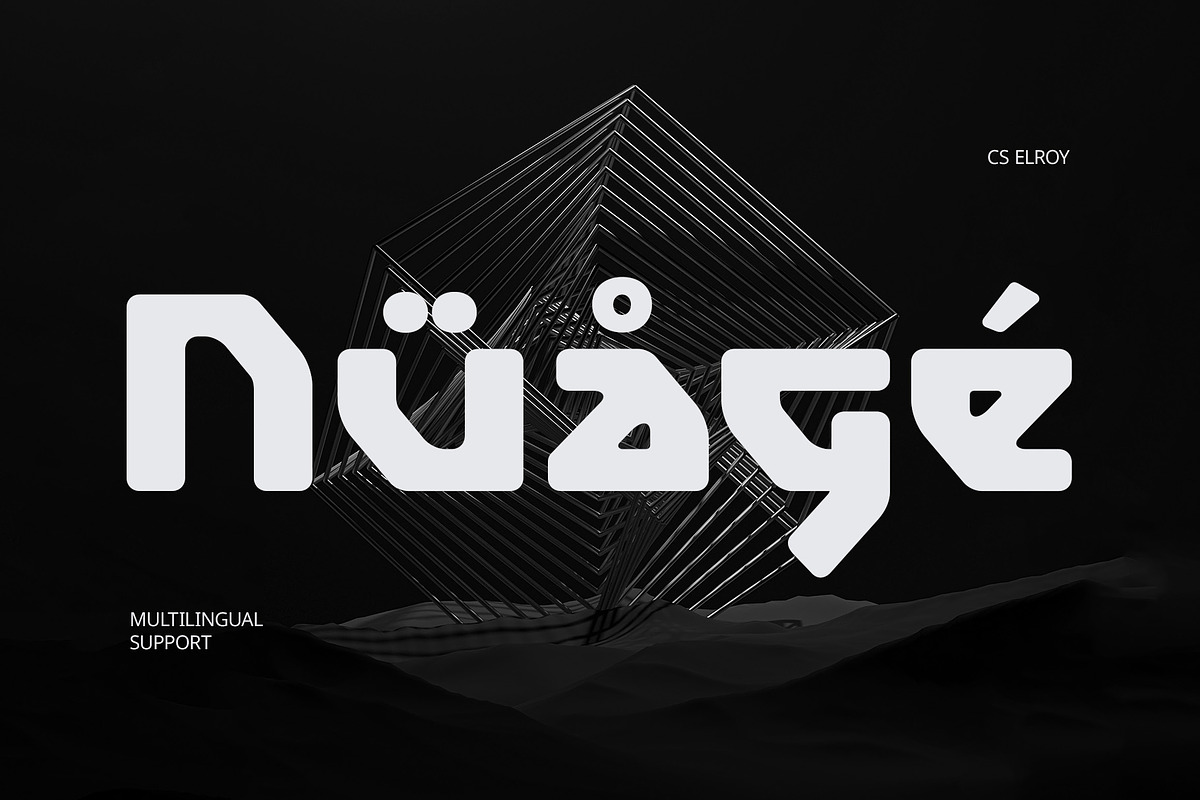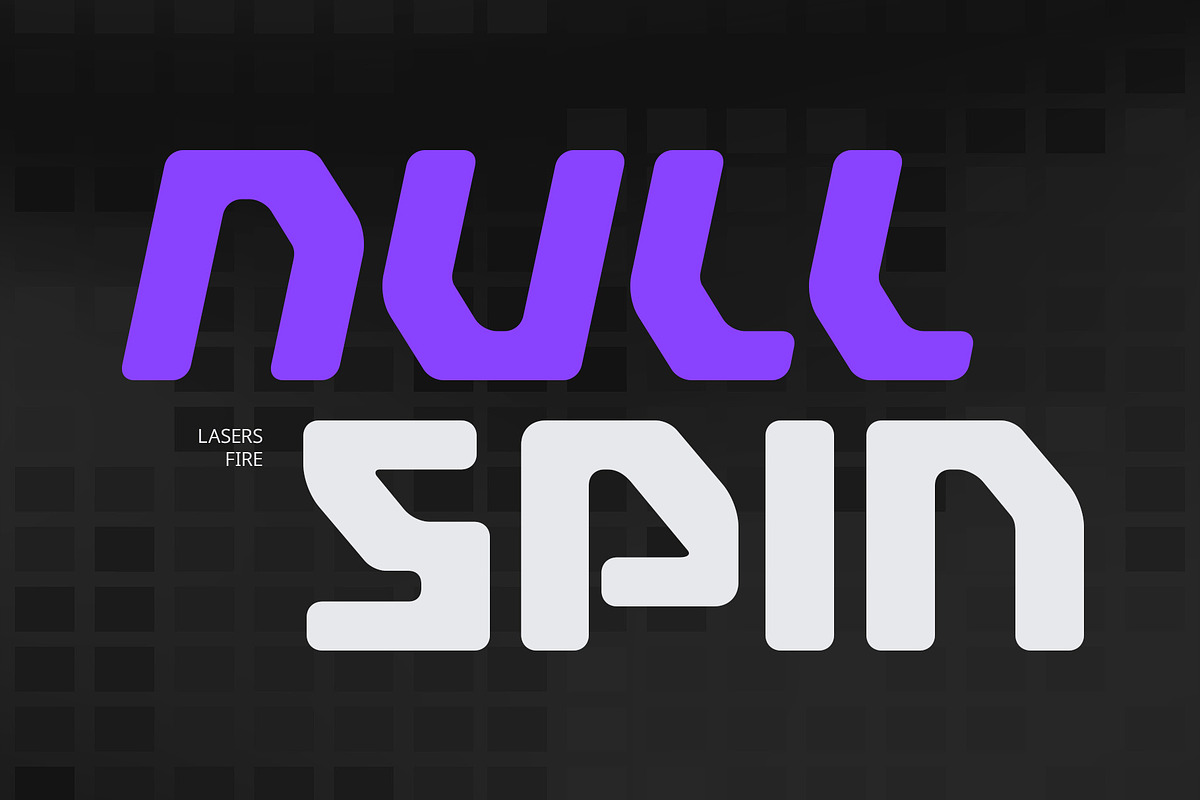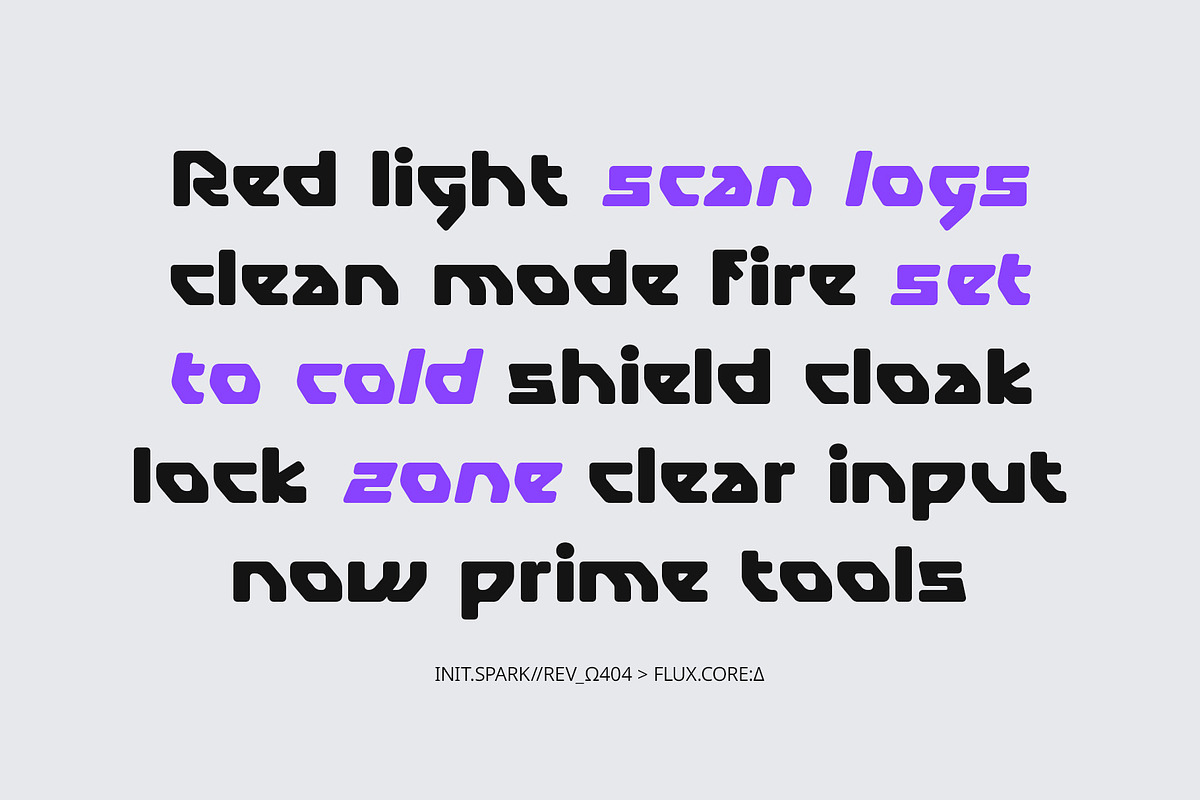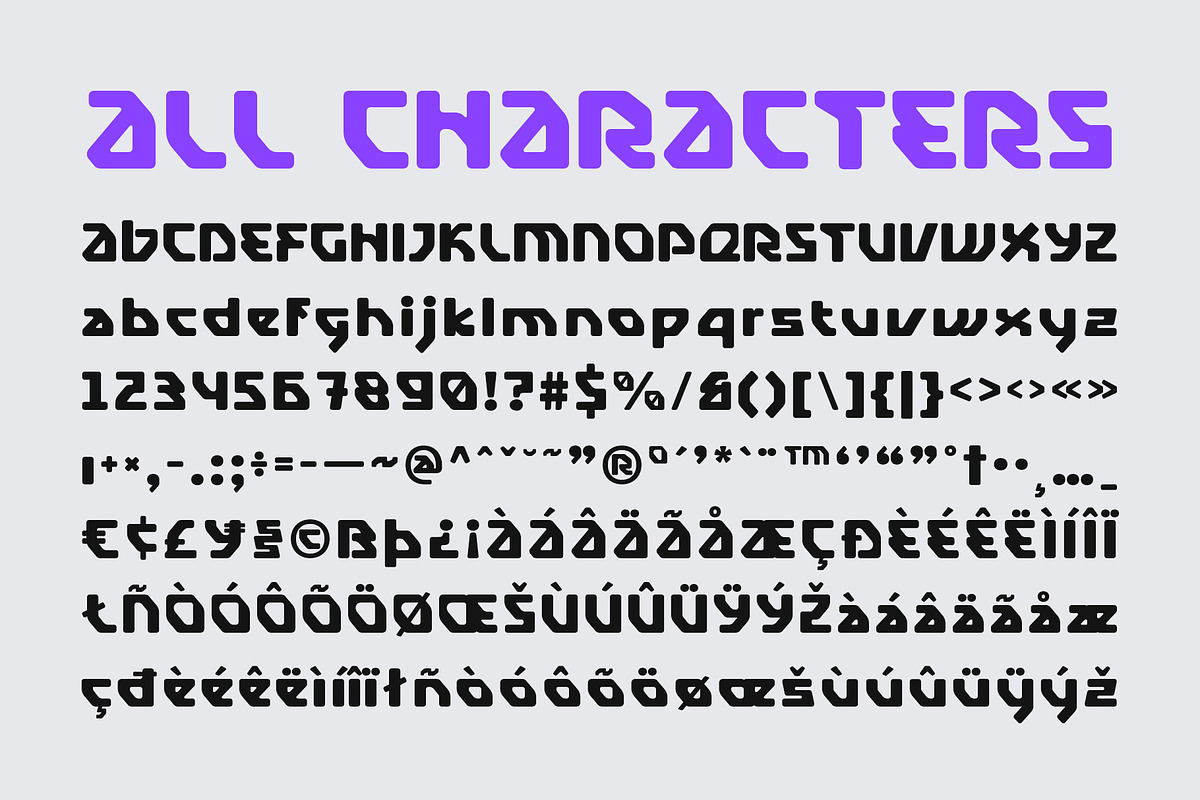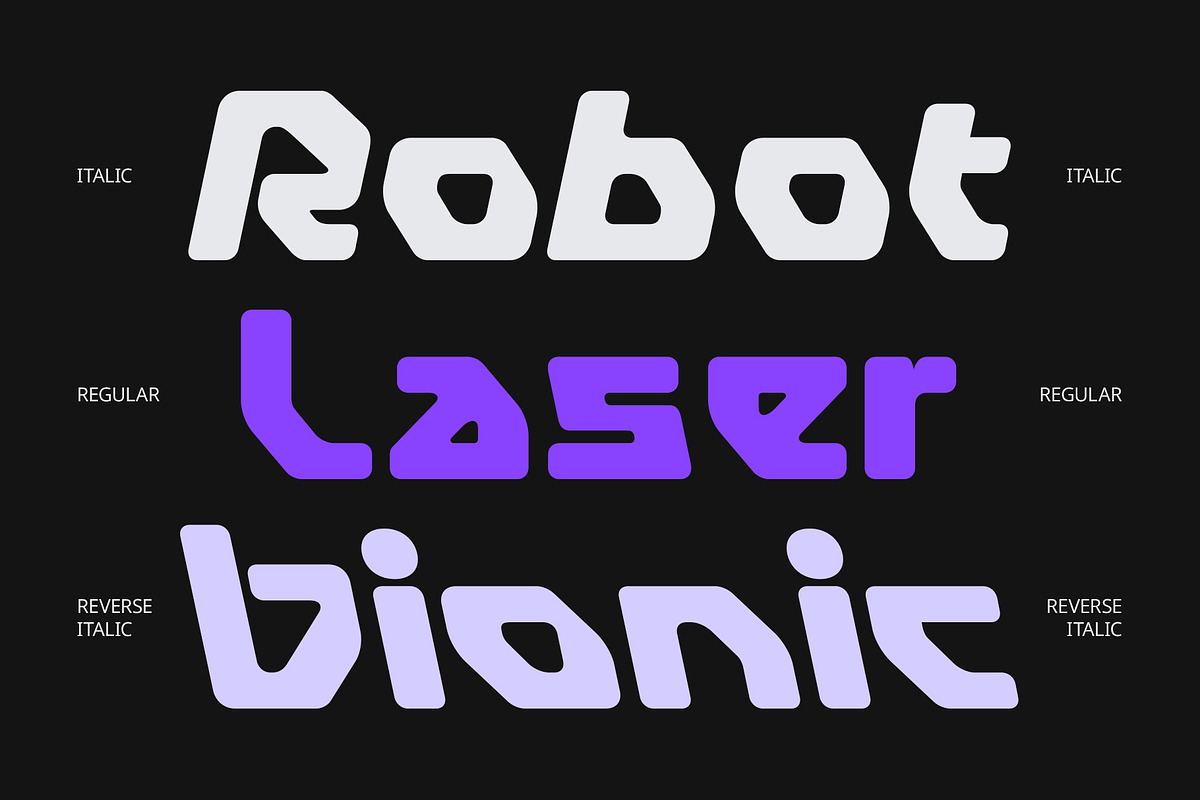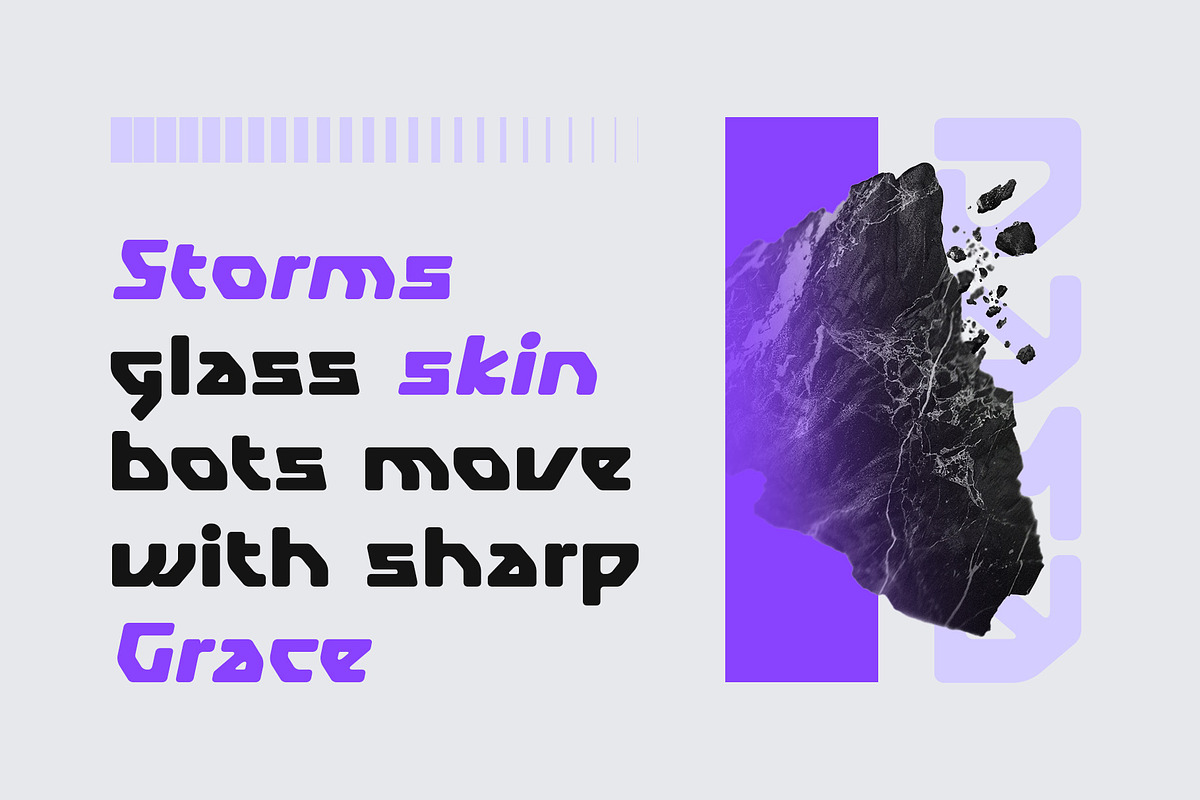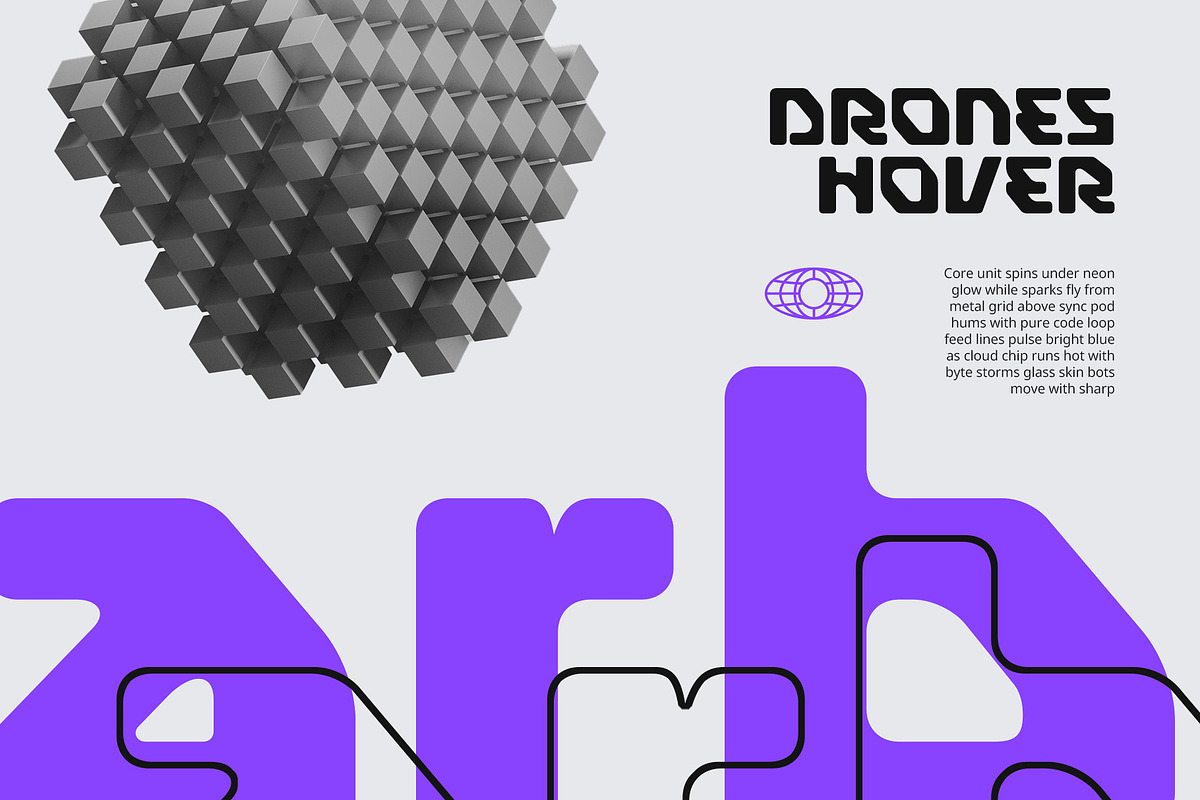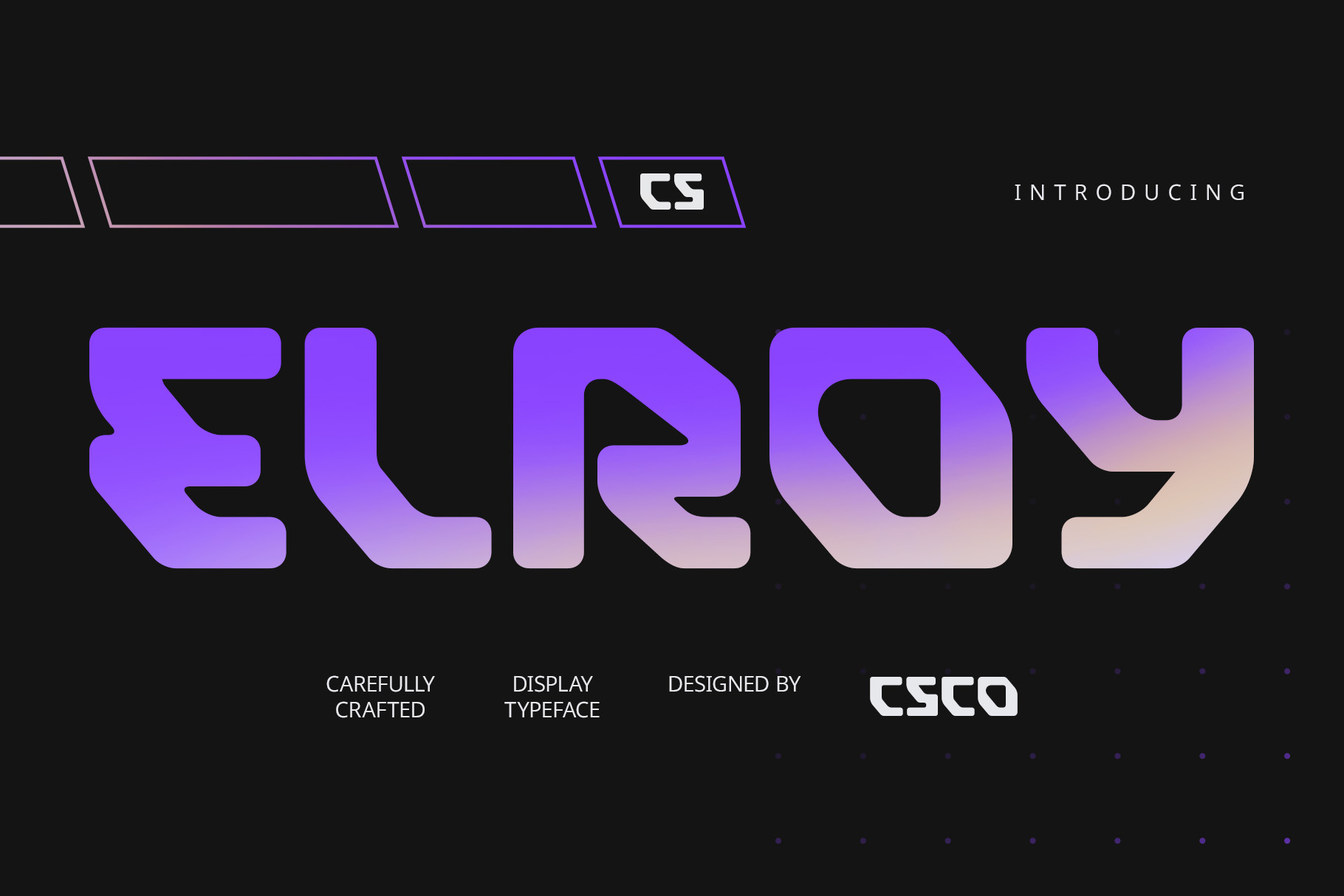
CS Elroy – Techno Font
CS Elroy – A Bold and Futuristic Techno Display Font
Cutting-Edge Style with Digital Precision CS Elroy is a modern display font that captures the essence of tech innovation and futuristic design. With its bold form, sharp angles, and clean geometry, this typeface projects a high-tech, cutting-edge presence, ideal for pushing the visual boundaries of any design.
Engineered for the Future Inspired by techno aesthetics and digital environments, each character in CS Elroy is meticulously designed with mechanical clarity and confident structure, giving off a sense of precision, speed, and modern intelligence. The font evokes futuristic machinery, cyberspace, and innovation, making it perfect for brands or visuals that aim to feel dynamic and visionary.
Versatile, Bold, and Purposeful Whether you’re designing for gaming interfaces, electronic product branding, futuristic posters, or tech startups, CS Elroy delivers the visual power to make your message stand out and resonate in forward-facing industries. It adds a bold, energetic tone that commands attention without sacrificing clarity.
Ideal for Next-Gen Design Projects From technology startups and electronic events to music visuals and next-gen packaging, CS Elroy gives you the tools to communicate in a language that feels bold, advanced, and unmistakably futuristic. It’s a font designed not just for today—but for tomorrow’s most ambitious ideas.